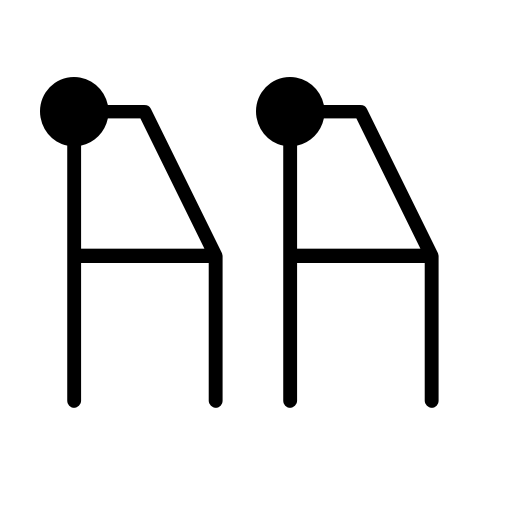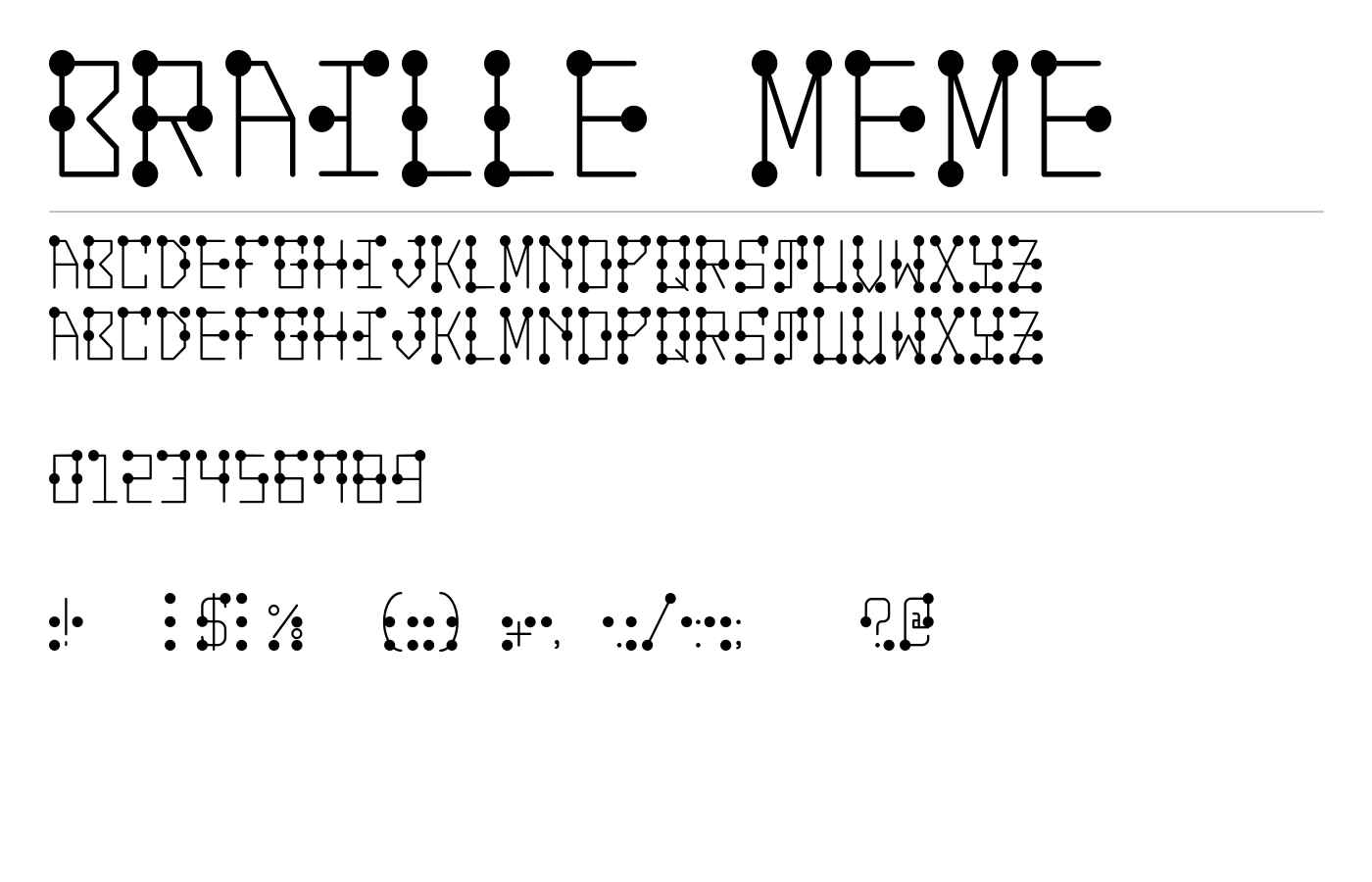
Braille Meme Font is a unique, decorative sans serif typeface that blends geometric, thin lines with circular dots reminiscent of Braille patterns, creating a playful yet tech-inspired look. Its light weight, narrow width, and consistent stroke contrast give it a modern and minimalistic feel, making it ideal for creative headlines, digital art, and projects seeking a quirky, innovative vibe. This font works best for branding, posters, and web use where eye-catching, unconventional typography is desired.
Braille Meme Font
About Braille Meme Font
| Font family | Braille Meme Font |
| Designer | Horacio Valencia |